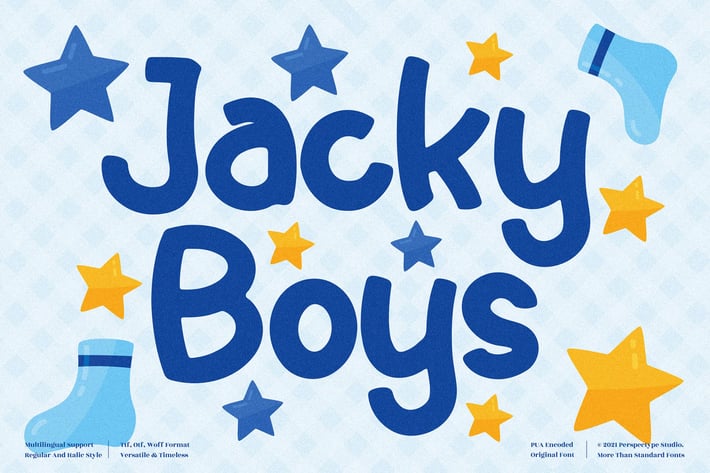
Jacky Boys Quirky Font
Jacky Boys is a fun and playful handwritten font with a quirky personality that brings joy to every design. Its bouncy letters and friendly curves make it perfect for projects that need an energetic, childlike charm. Whether for children’s products, crafts, or cheerful branding, Jacky Boys delivers an uplifting and creative feel.
Playful handwritten style with unique shapes
Includes uppercase, lowercase, numbers, and punctuation
Works beautifully for both print and digital media
Kids’ merchandise and product packaging
Educational materials and classroom decor
Fun branding and playful logos
Greeting cards and social media content
* Posters, quotes, and DIY projects
Add a splash of fun and imagination — Jacky Boys makes every word bounce with cheerful energy!